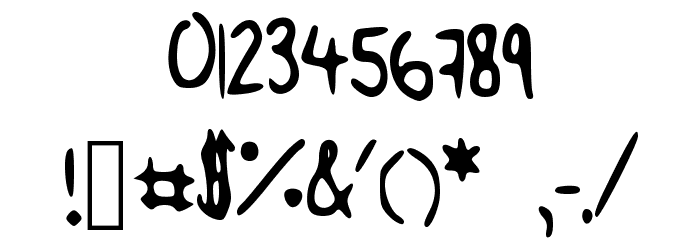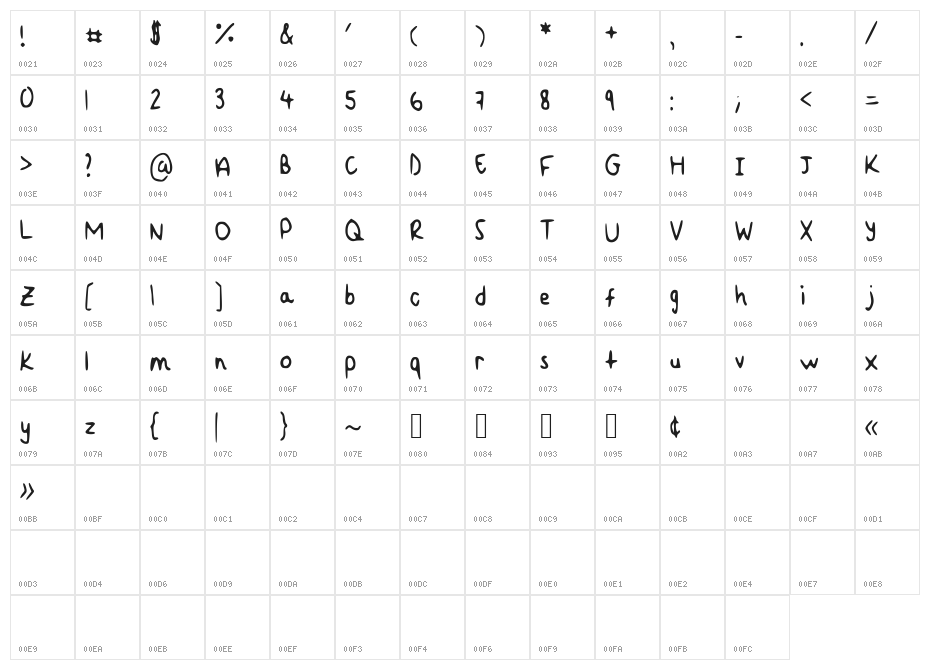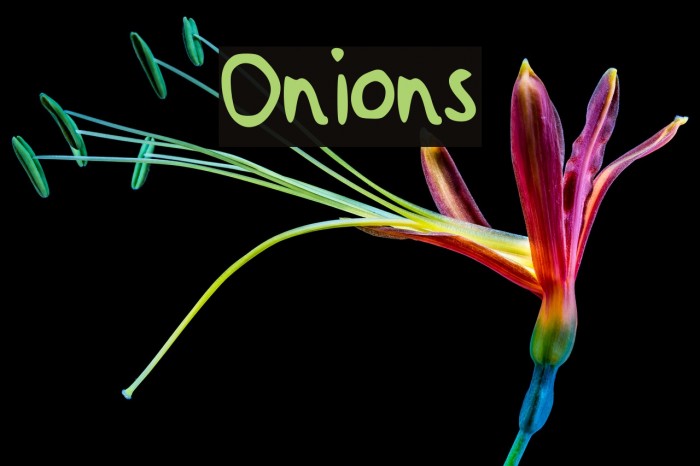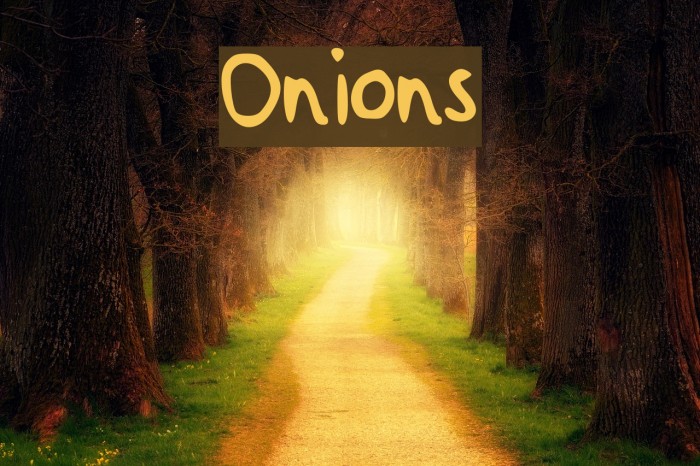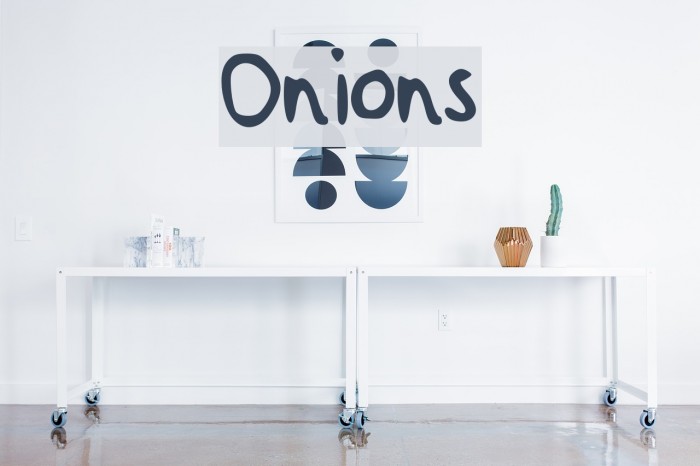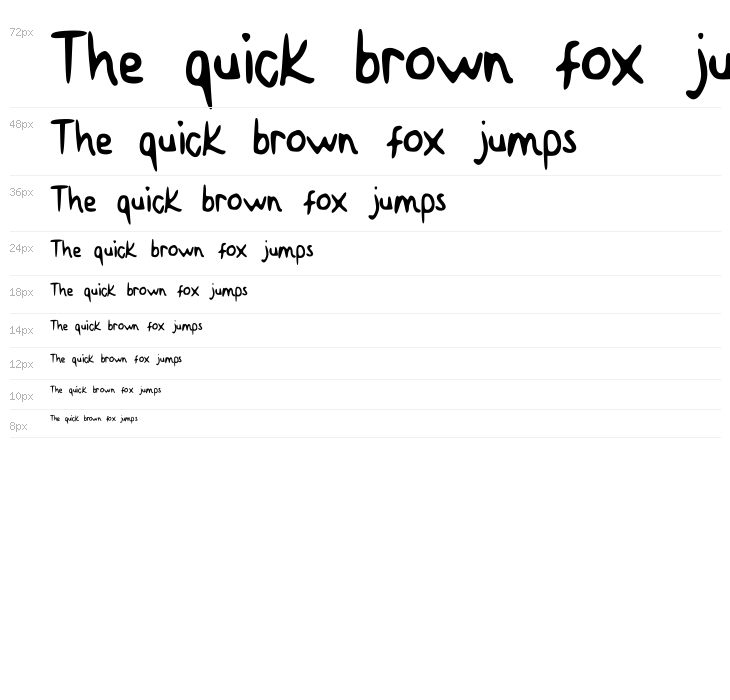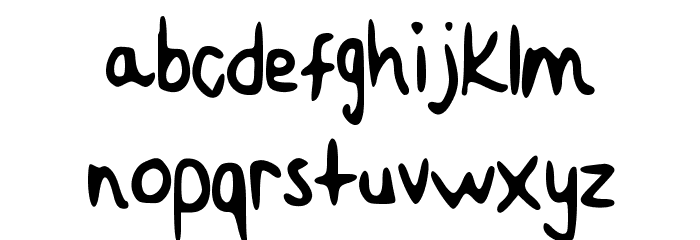
Onions Font
Onions Description
This font exhibits a playful and casual handwritten style, characterized by its irregular and organic letterforms. The strokes are uneven, giving it a lively and informal appearance. The uppercase and lowercase letters maintain a consistent style, with rounded edges and a slightly tilted orientation, adding to its whimsical charm. The numerals and special characters follow the same playful aesthetic, making it suitable for creative and informal projects. The font's unique personality makes it stand out, offering a friendly and approachable feel.
| Proposed Projects | Ideal for children's books, greeting cards, casual branding, and creative projects. |